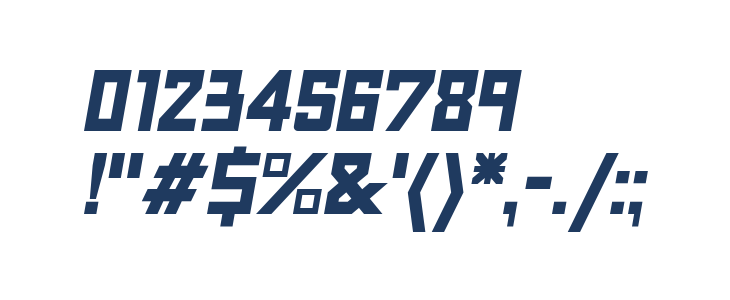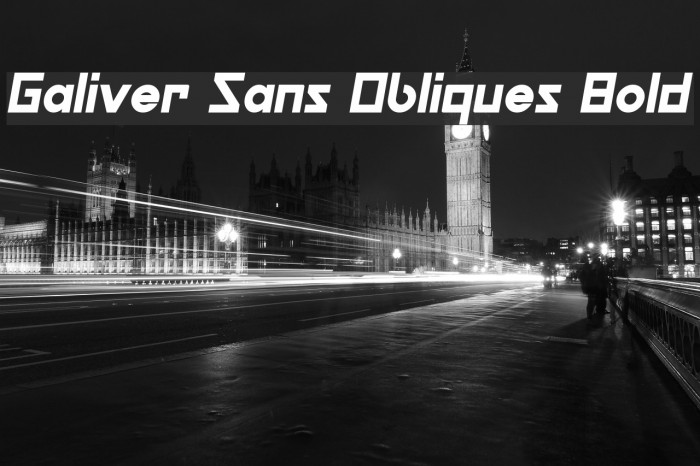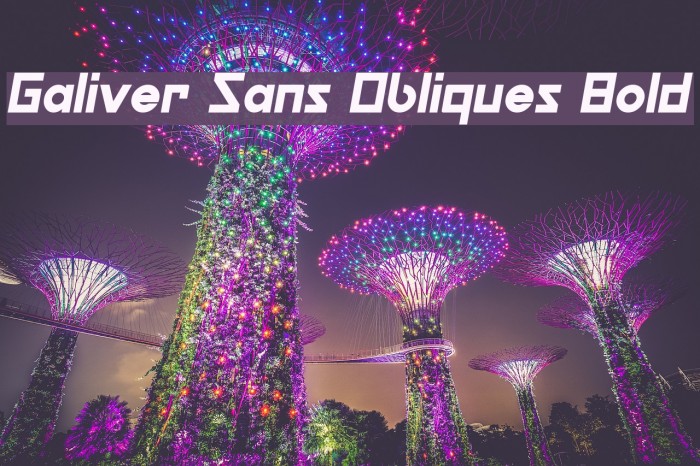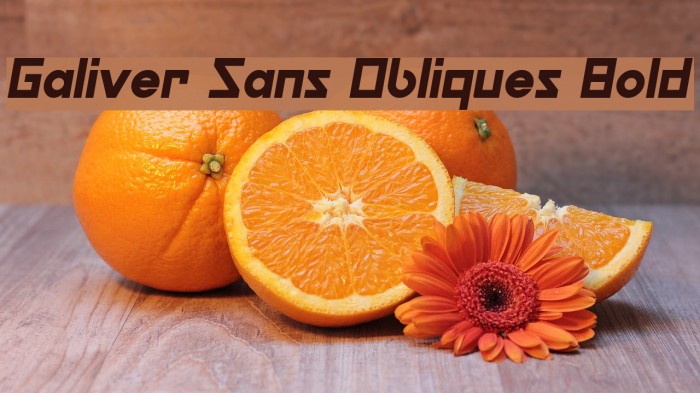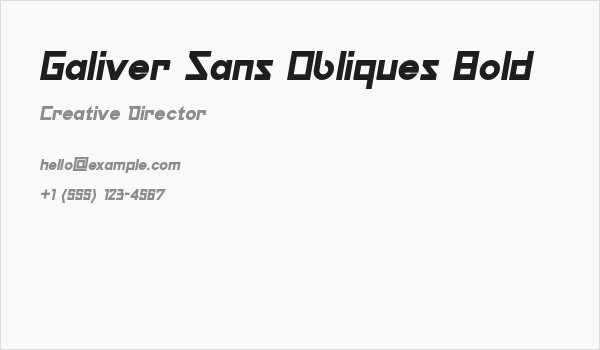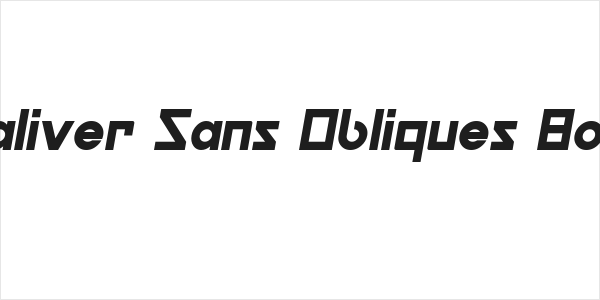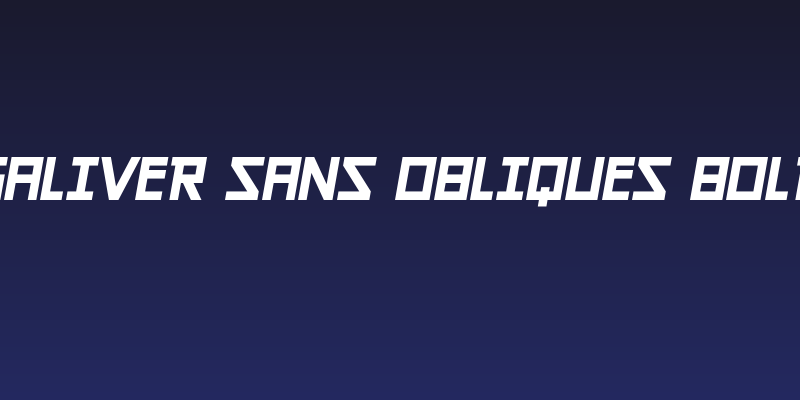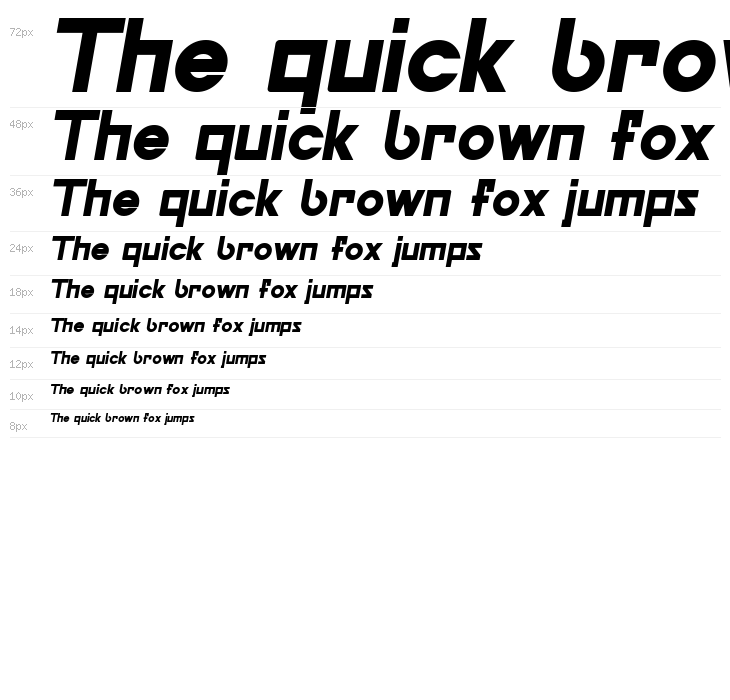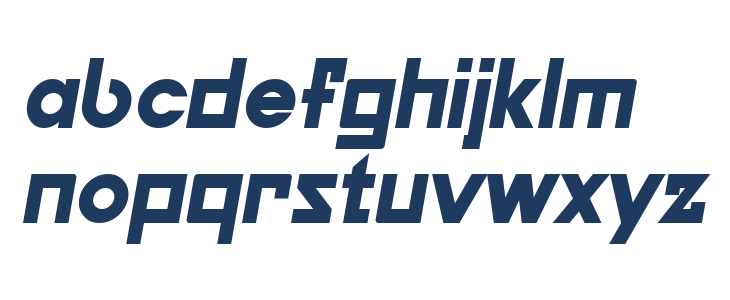
Galiver Sans Obliques Bold Font
Galiver Sans Obliques Bold Description
This font features a bold and dynamic style with a distinct slant, giving it an energetic and forward-moving appearance. The uppercase letters are angular and geometric, while the lowercase letters maintain a consistent slant, enhancing the overall oblique design. The numerals are bold and match the assertive style of the alphabet. Special characters are designed to complement the bold and slanted aesthetic, making them stand out effectively. The font's strong presence makes it suitable for impactful designs.
| Proposed Projects | Ideal for sports branding, dynamic posters, modern logos, and attention-grabbing headlines. |